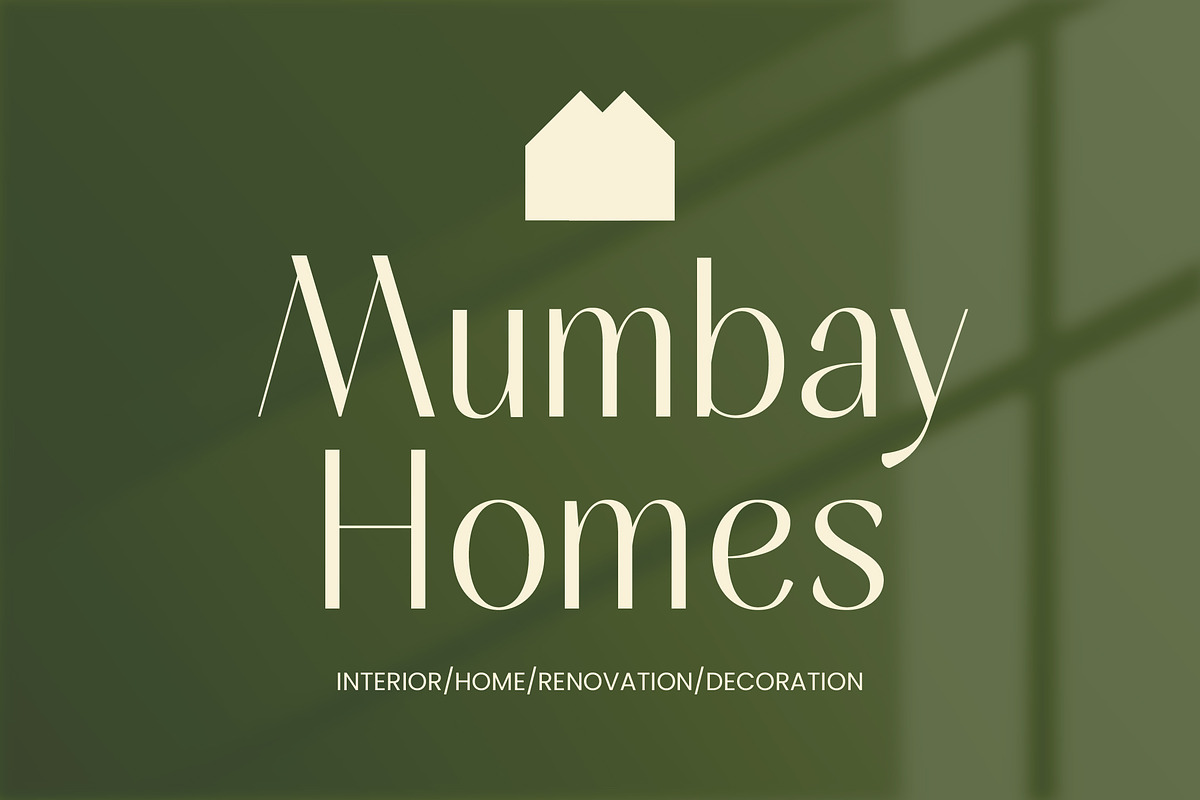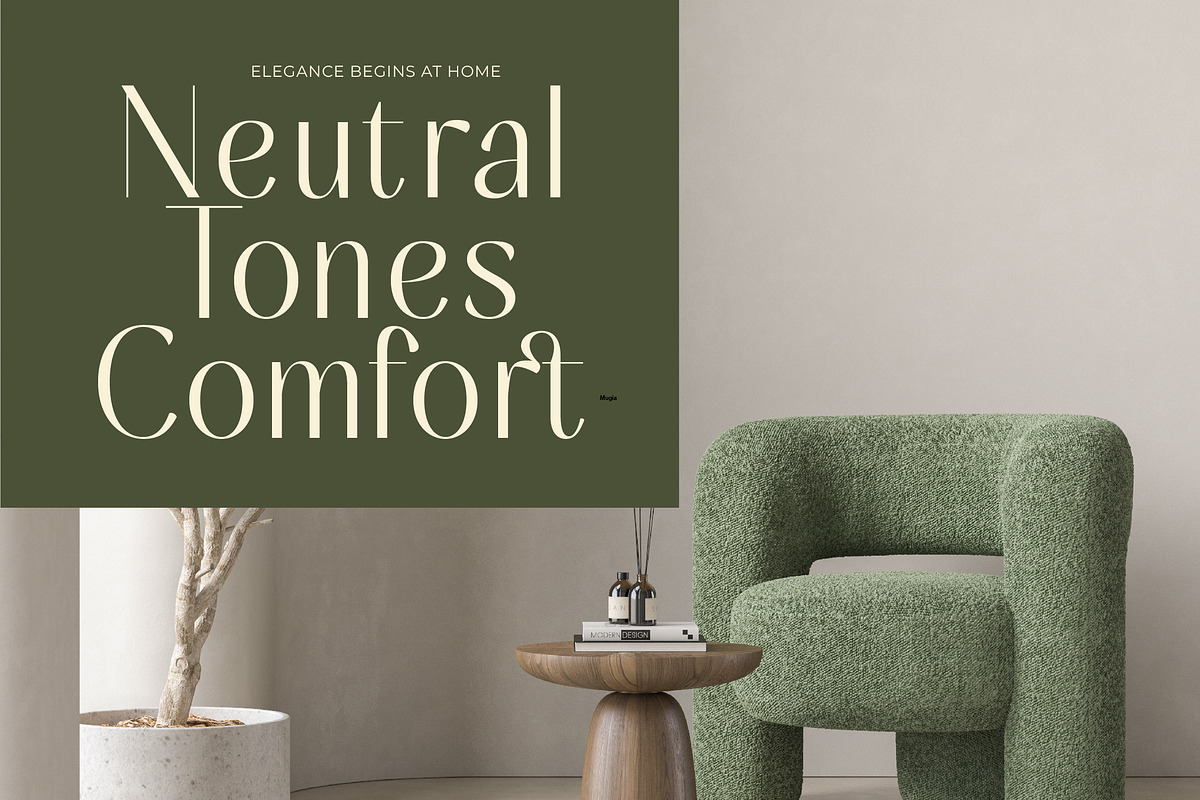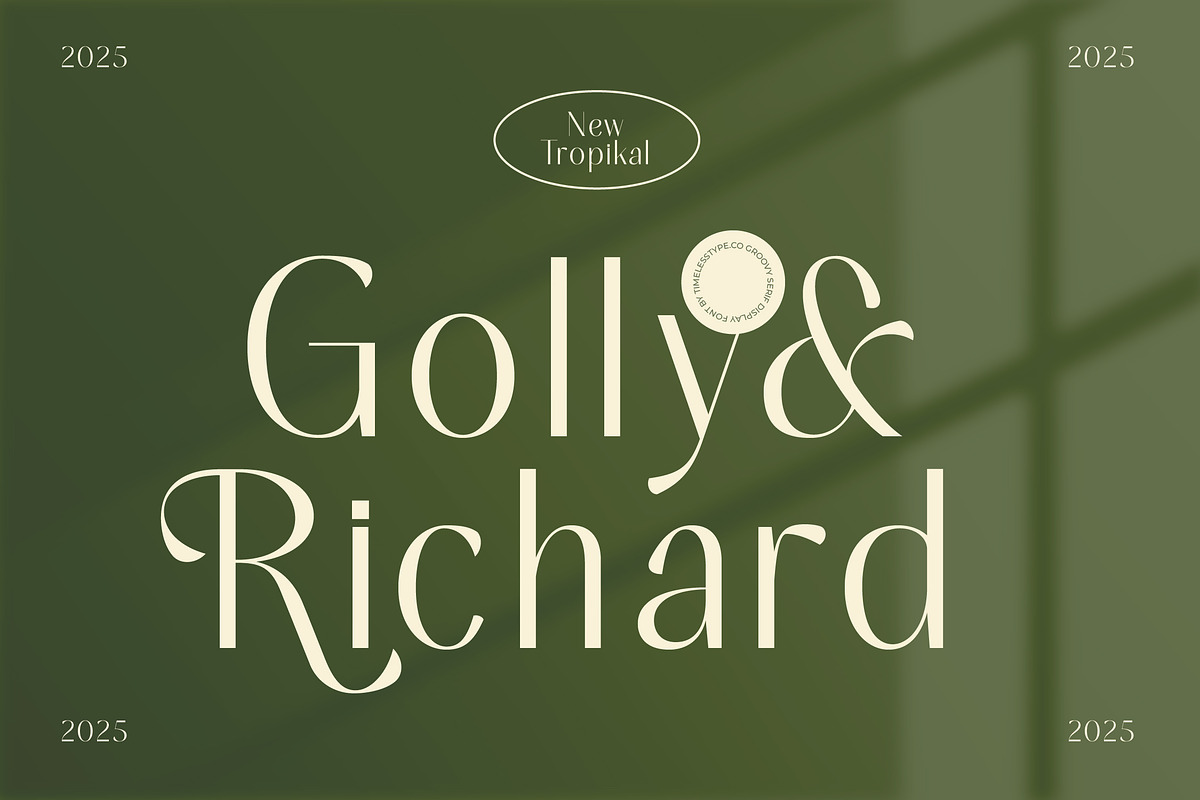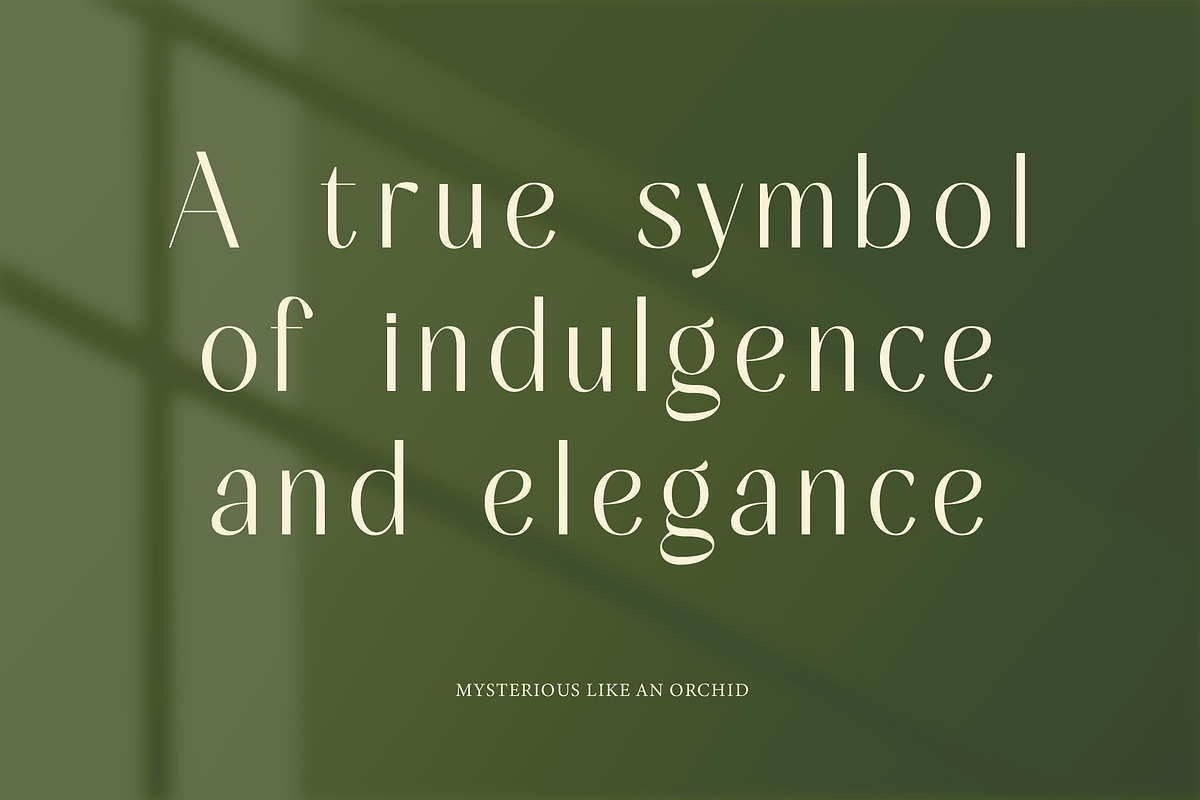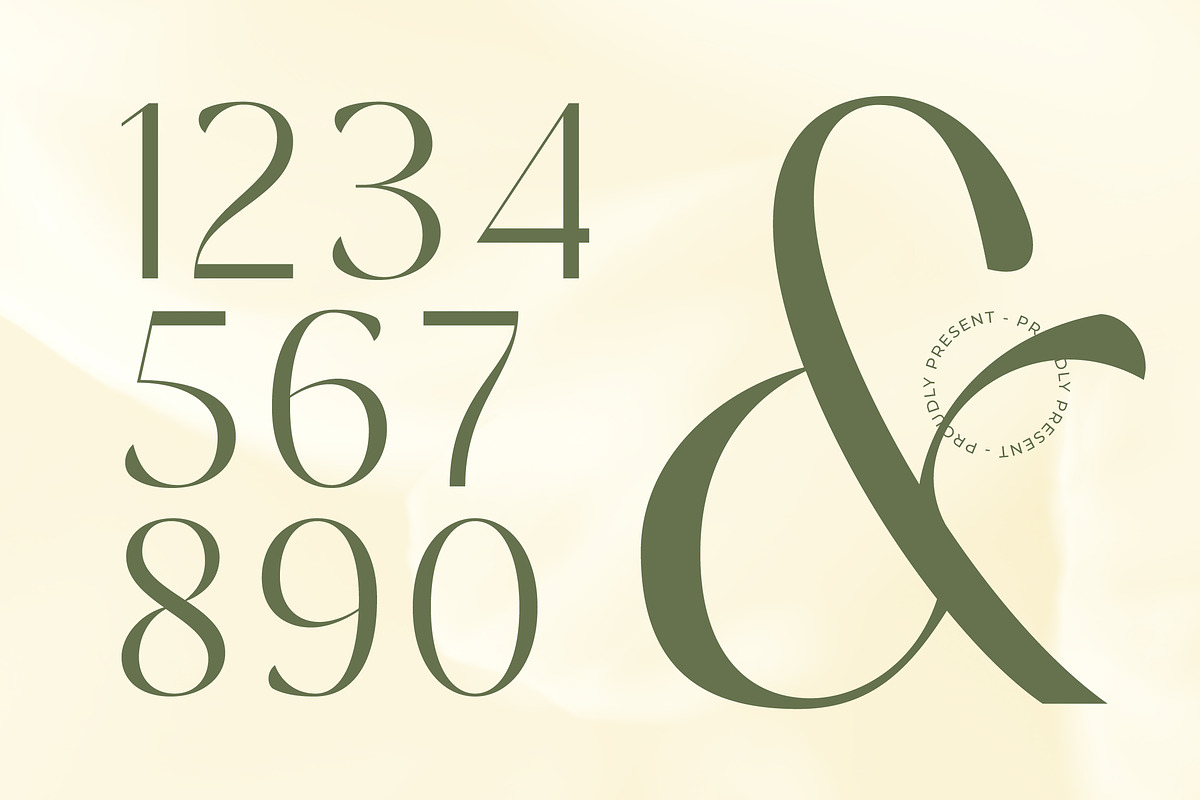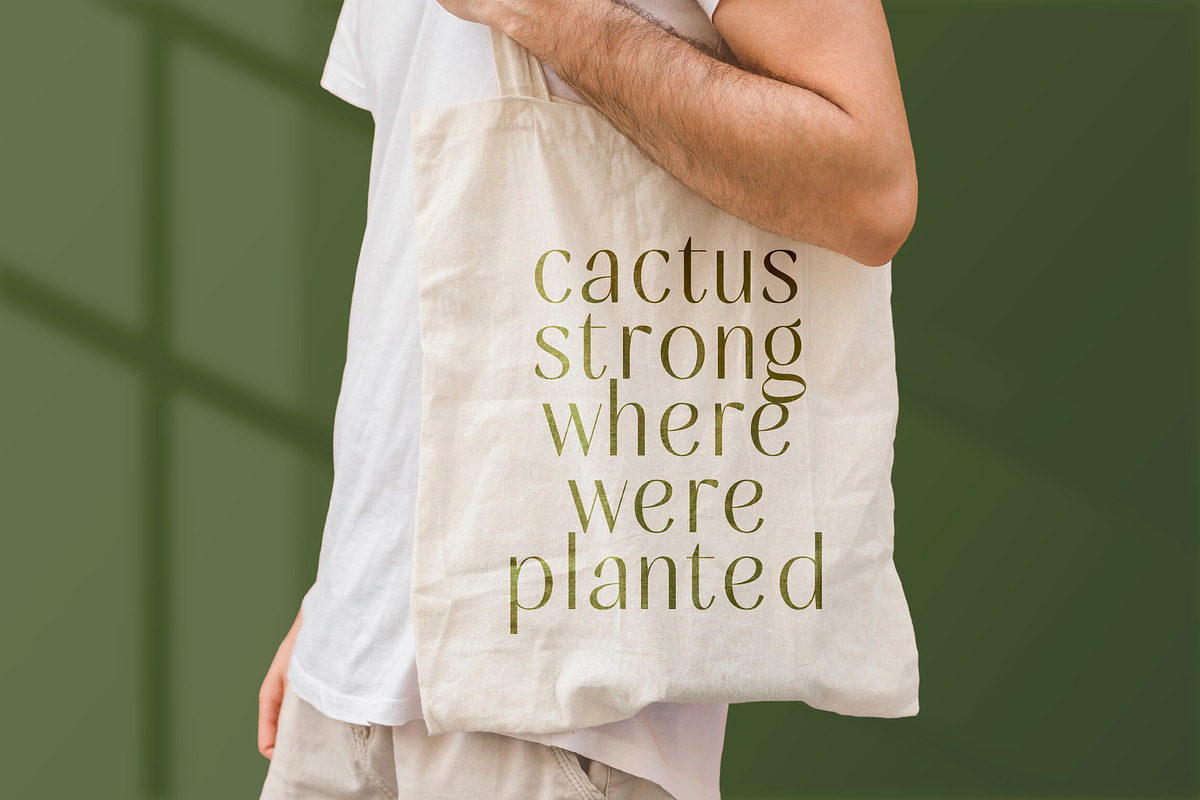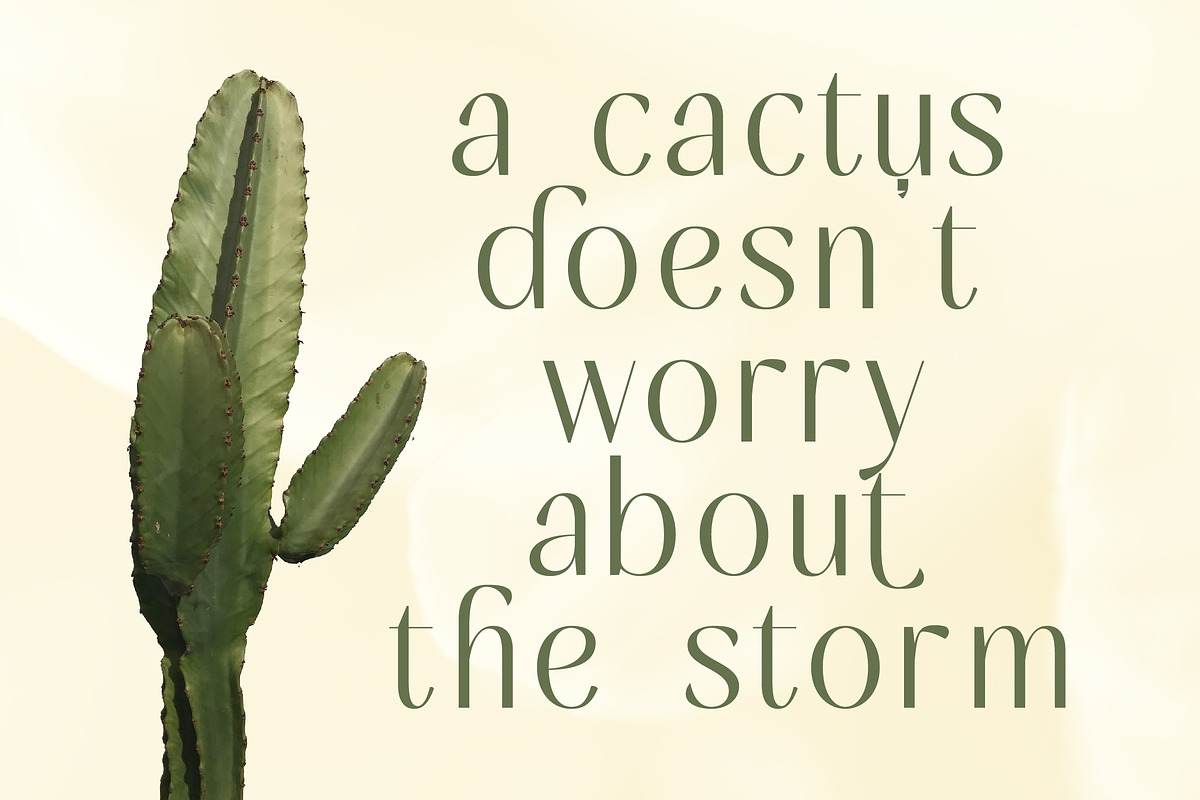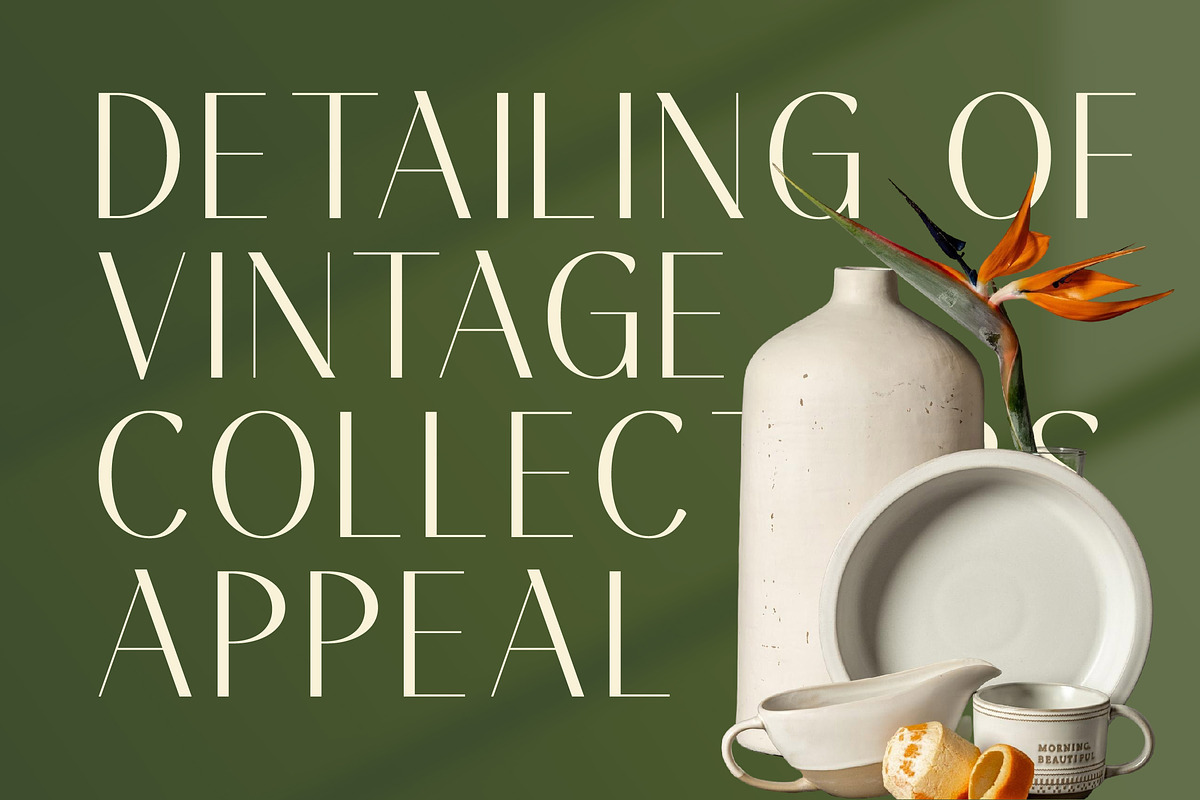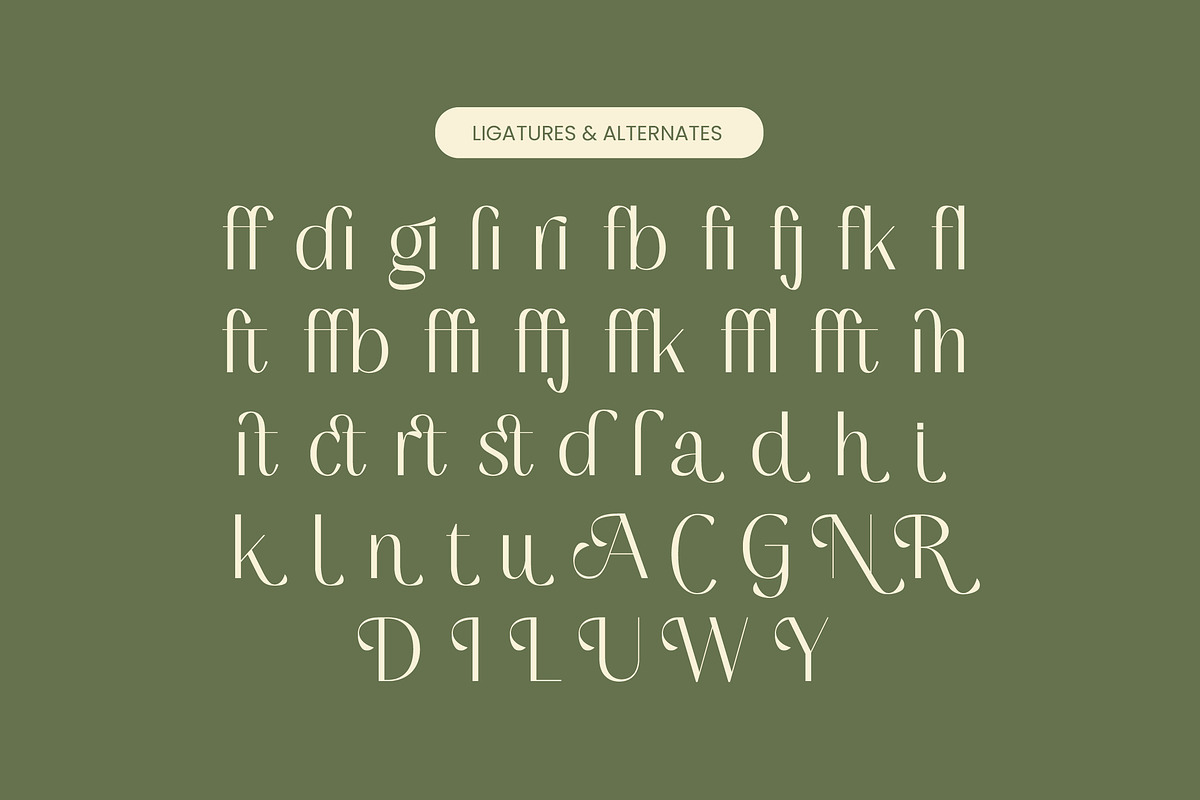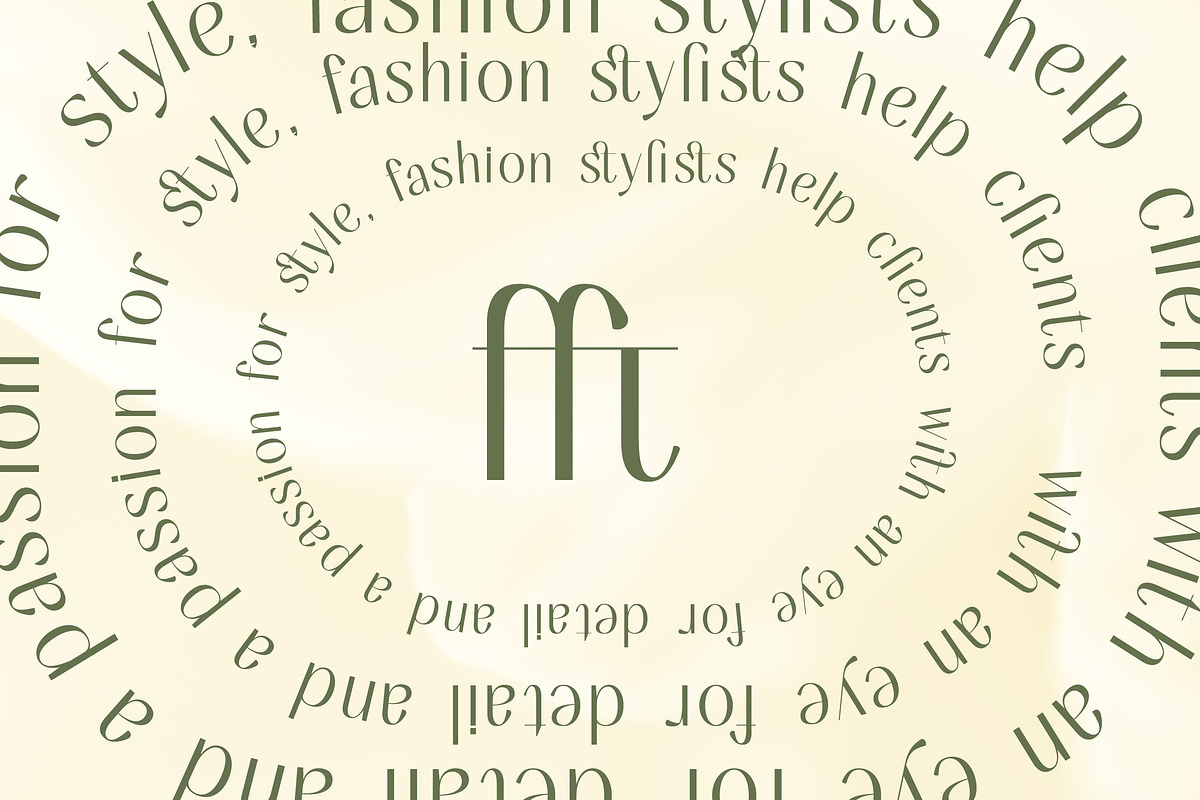
Mugia Elegant Modern Display Font
Experience the effortless sophistication of Mugia, a typeface designed to bridge the gap between classic elegance and contemporary minimalism. This font acts as a visual signature for brands that value refinement and artistic clarity above all else.
Inspired by the interplay of architectural shadows and the high-contrast aesthetic of luxury fashion houses, this typeface captures a serene yet powerful atmosphere. It reflects the poise of a high-end gallery space, where every stroke is intentional and every curve tells a story of curated beauty.
This modern serif display powerhouse is the ultimate choice for creators seeking luxury typography with a soul. Its high-contrast serif terminals and unique silhouettes provide a distinct editorial font quality that guarantees a significant branding impact across digital and print mediums.
Positioned at the forefront of the modern serif trend, this typeface answers the call for editorial display fonts that possess a human touch. By embracing character-driven typography, it allows designers to move away from generic styles and toward a more bespoke, high-fashion aesthetic.
Ideally crafted for premium logo design and comprehensive branding identity systems, it excels in the high-stakes world of editorial layouts. Its graceful proportions make it a favorite for luxury packaging, boutique wedding stationary, and high-concept fashion advertisements.
Beyond its visual beauty, the font is technically robust with 22 decorative ligatures and 35 unique alternates for custom flourishes. The inclusion of multilingual support and international characters ensures that your creative vision remains consistent across global markets without compromise.
- Ligature 22 Alternate 35